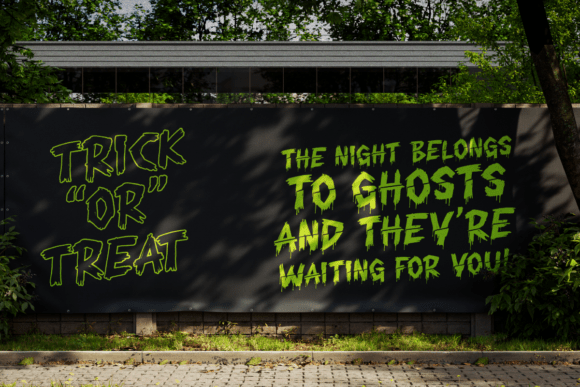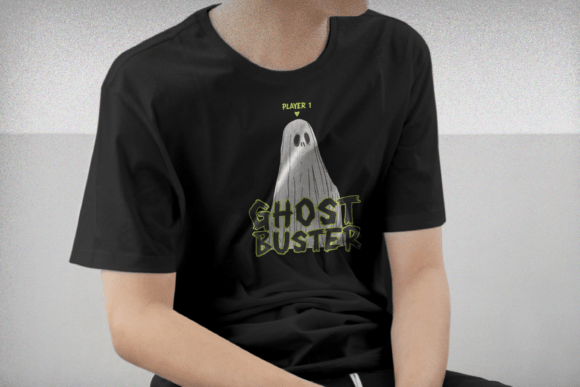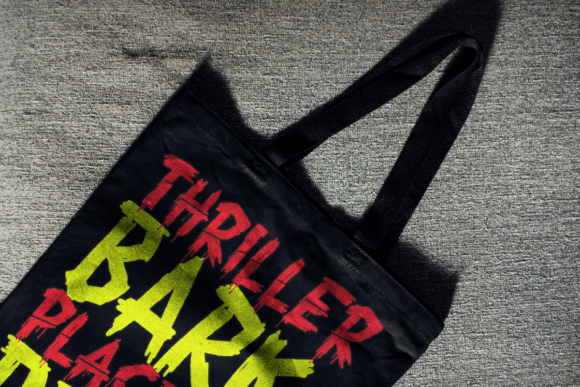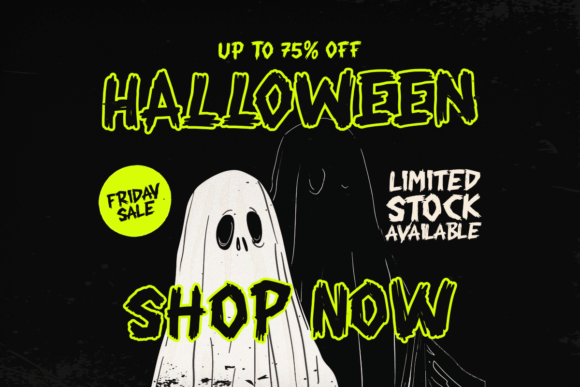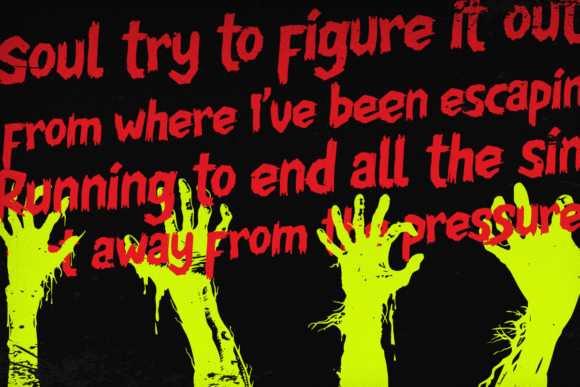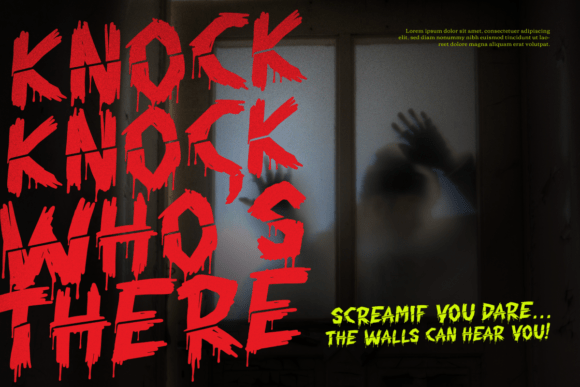
Unleash the Horror: Introducing Chiller Mark Font
Are you ready to add a scream-worthy twist to your designs? Look no further than the Chiller Mark Font, a bone-chilling horror display font that’s sure to make your blood run cold. With its slashed, drippy blood style and over 260+ glyphs, this font is perfect for creating spooky and terrifying designs that will leave your audience shivering with fear.
A Font that will Make Your Blood Run Cold
Chiller Mark is a bold, jagged, and dripping font that’s been ripped straight from a horror scene. Its unique style features slashed and drippy blood effects that give it a eerie and unsettling feel. Each character is carefully crafted to deliver instant fear factor with maximum style, making it perfect for a wide range of design projects.
With Chiller Mark, the design possibilities are endless. Here are just a few ideas to get you started:
• Halloween party flyers: Create spooky and inviting flyers that will make your party stand out from the rest.
• Haunted house posters: Design terrifying posters that will lure in thrill-seekers and horror fans.
• Scary movie titles: Add a touch of horror to your movie titles and make them stand out from the crowd.
• Horror podcast branding: Create a brand identity that’s sure to send shivers down your listeners’ spines.
• Killer merch design: Design terrifying merchandise that will make your fans scream with delight.
What Makes Chiller Mark So Special?
So, what sets Chiller Mark apart from other fonts? Here are just a few features that make it a standout:
• Over 260+ glyphs: With a vast range of characters, you can create complex and detailed designs that will leave your audience in awe.
• Slashed and drippy blood style: The unique style of Chiller Mark is sure to add a touch of horror to any design.
• Bold and jagged characters: Each character is carefully crafted to deliver a bold and terrifying look that’s sure to make your designs stand out.
Whether you’re a professional designer or a crafter looking to add a personal touch to your projects, Chiller Mark is the perfect font for you. Its versatility and range of design possibilities make it an ideal choice for:
• Graphic designers looking to add a touch of horror to their designs.
• Crafters creating handmade cards, invitations, and decorations.
• Small business owners looking to create a unique brand identity.
Get Ready to Unleash the Horror